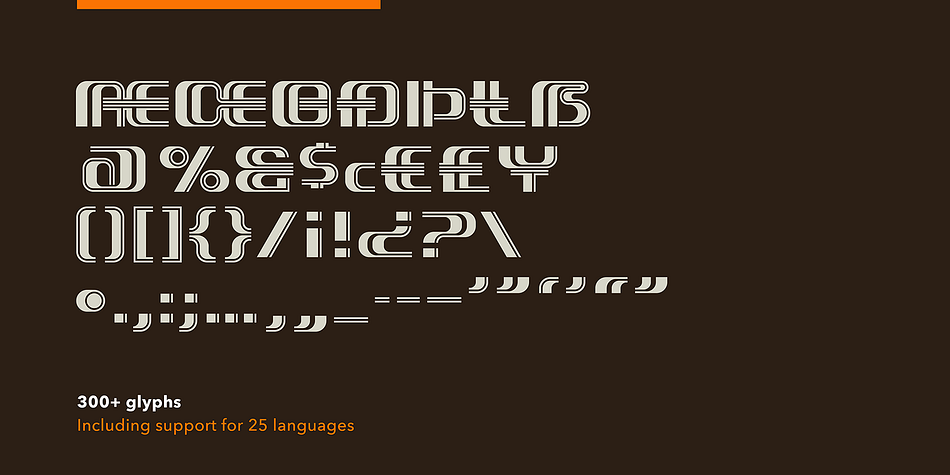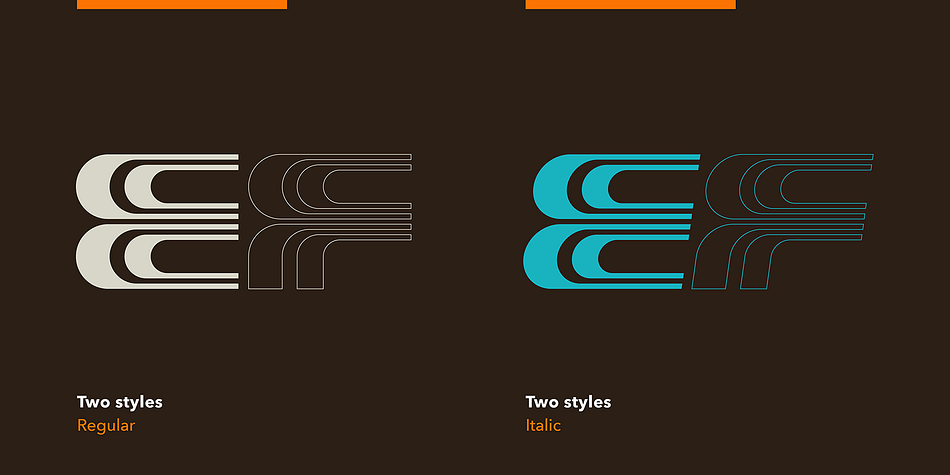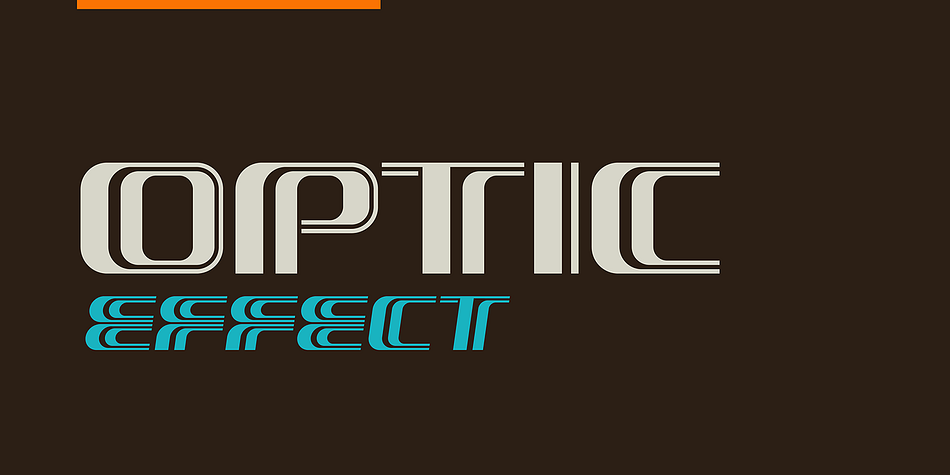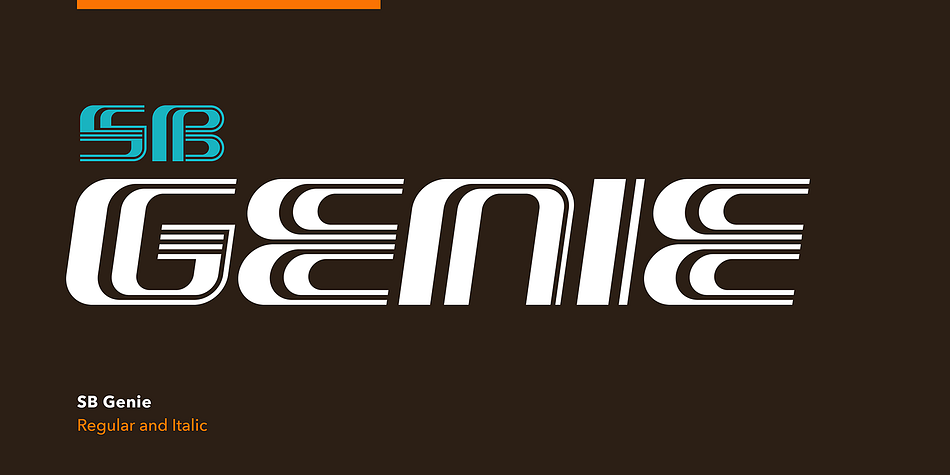
Designed by Craig Stainton, SB Genie is a display and novelty font family. This typeface has two styles and was published by SelfBuild Type Foundry.
SB Genie is a geometrically constructed display typeface inspired by Op Art. During the 1970s, graphic designers started to experiment with graphics and lettering inspired by Bridget Riley, Victor Vasarely, Franco Grignani and other artists working in the field of optical art. The high-contrast striping creates a strong visual effect that is further enhanced by the precise circular curving and horizontal flow of the letterforms. SB Genie is designed a display typeface and is best used at larger sizes where visual impact is required. It works well in simple, high-contrast colours and in black and white.